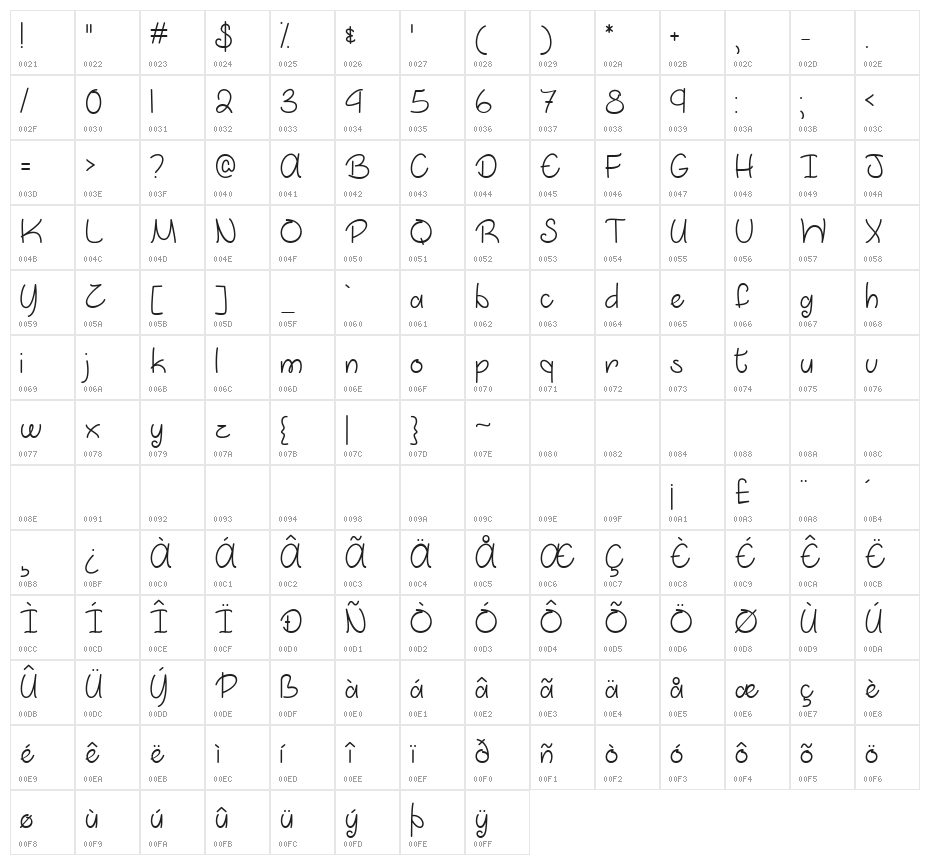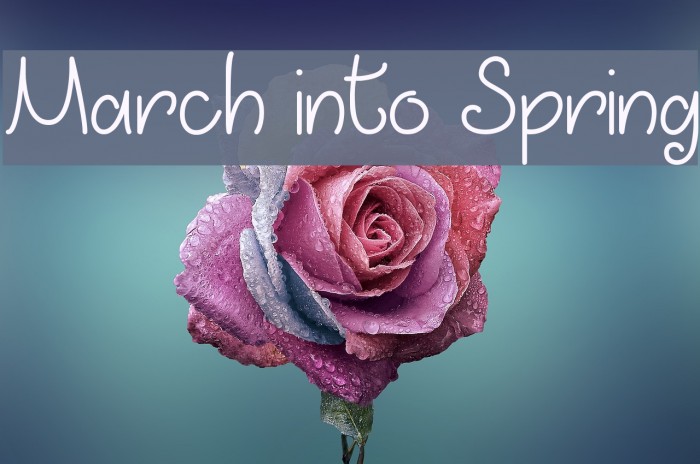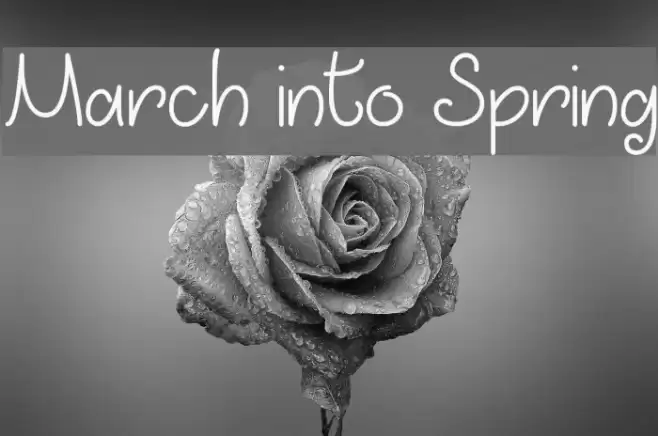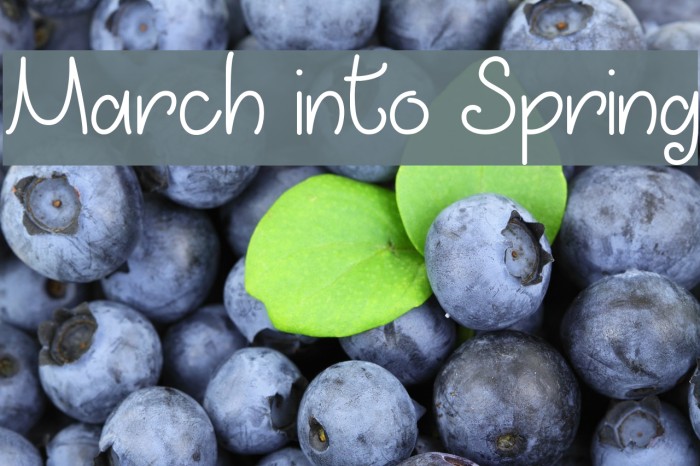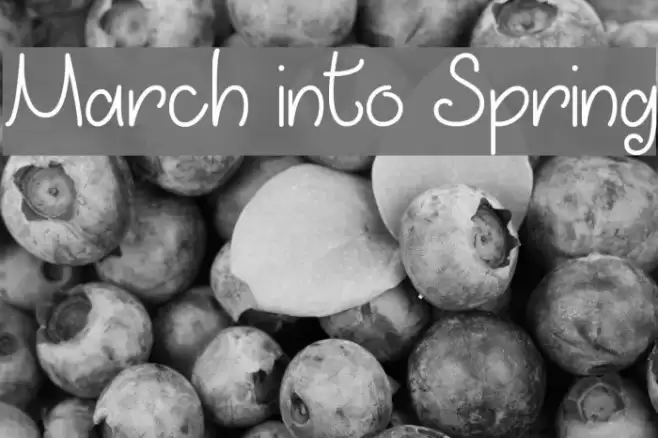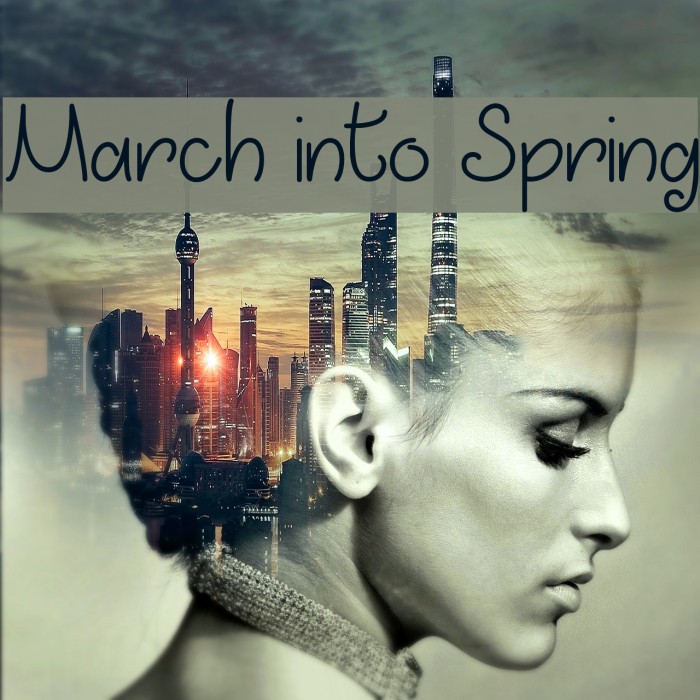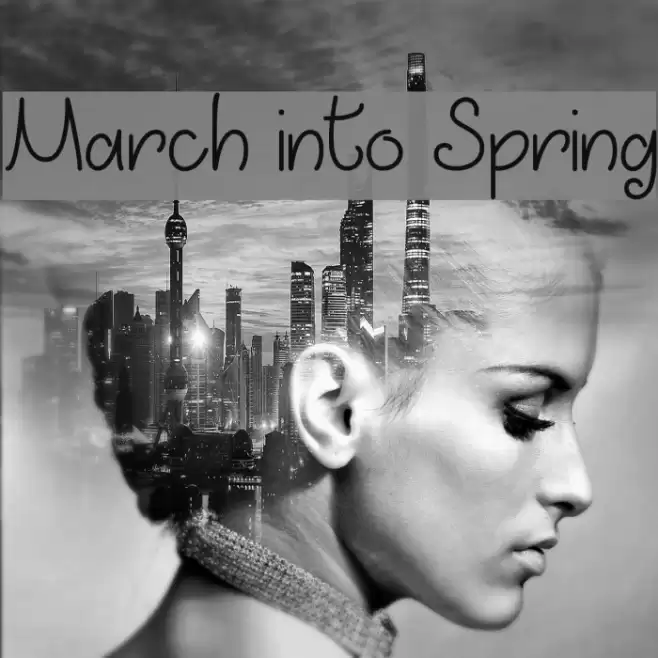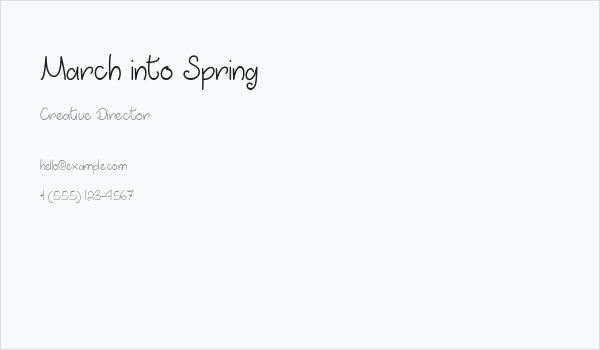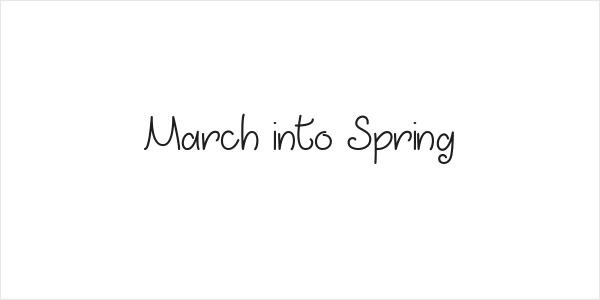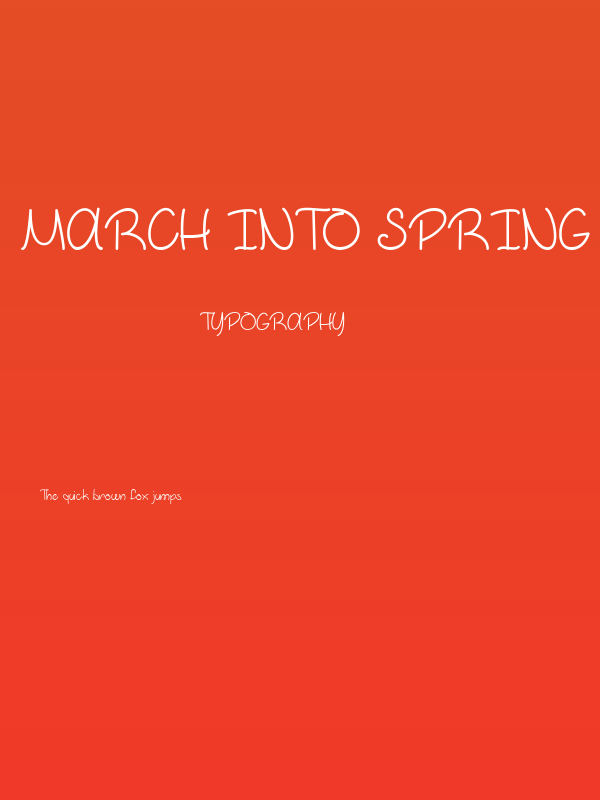
March into Spring Font
March into Spring Description
This playful and whimsical font features a handwritten style with smooth, flowing curves and a casual, friendly appearance. The characters are slightly slanted, giving a dynamic and lively feel. The uppercase letters are bold and rounded, while the lowercase letters maintain a consistent flow with subtle loops and curls. The numbers and special characters complement the overall style, making it versatile for various design needs. The font's informal and approachable nature makes it ideal for projects that require a personal touch.
Overall StyleCasual
Use CaseHeadlines, Invitations, Branding
Proposed ProjectsGreeting cards, children's books, playful branding, and social media graphics.